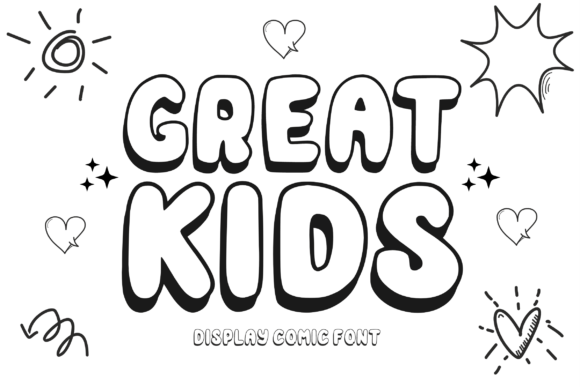
Great Kids Font: Elevate Your Designs with a Spirited and Contemporary Outline Font
Are you tired of using the same old fonts for your designs? Look no further than the Great Kids font, a spirited and contemporary Outline font that is sure to capture the eye instantly. With its adorable characters and versatility, Great Kids is the perfect tool to transform ordinary everyday items into designer artistic pieces.
What Makes Great Kids Font Stand Out?
- Spirited and Contemporary Design: Great Kids font boasts a unique and modern design that is sure to make your designs stand out from the crowd.
- Adorable Characters: The font features a range of adorable characters that are sure to capture the eye instantly.
- Outline Font: Great Kids is an Outline font, making it perfect for use in a variety of design applications, from t-shirts and mugs to tote bags and more.
- Enhance Sublimation Designs: The font is a delightful tool to enhance sublimation designs, adding an exciting twist to animations, comic titles, and beyond.
Endless Design Possibilities with Great Kids Font
With Great Kids font, the design possibilities are endless. Whether you’re looking to create custom t-shirts, mugs, tote bags, or any other everyday item, this font is sure to elevate your designs to the next level.
- Custom T-Shirts: Create unique and eye-catching custom t-shirts for kids and adults alike using Great Kids font.
- Mugs and Water Bottles: Add a personal touch to mugs and water bottles with custom designs featuring Great Kids font.
- Tote Bags and Accessories: Create stylish and functional tote bags, hats, and other accessories using Great Kids font.
- Animations and Comics: Use Great Kids font to add a fun and playful touch to animations, comic titles, and more.
- Play with Typography: Great Kids font is perfect for use in a variety of typography applications, from bold headings to playful body text.
In conclusion, Great Kids font is a spirited and contemporary Outline font that is sure to elevate your designs to the next level. With its adorable characters, versatility, and ease of use, Great Kids is the perfect tool for designers, artists, and crafters of all levels.